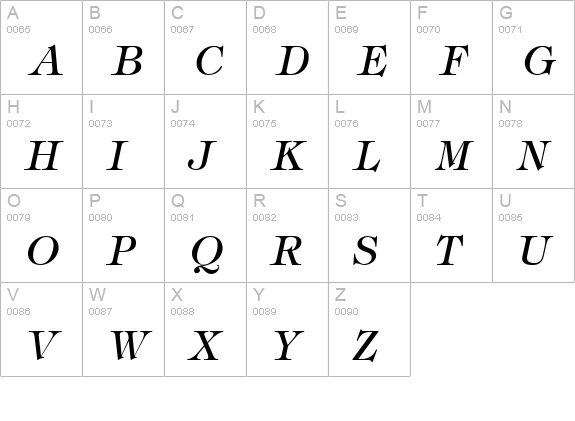
Timpani Italic is a distinctive, italic variant in the Timpani typeface family \xE2\x80\x94 well suited to design and typography projects.
Timpani Italic font is a stunning and versatile typeface that effortlessly combines elegance with a contemporary edge. With its graceful curves and slanted design, this font adds a touch of sophistication to any project, making it perfect for logos, titles, headings, and more. What sets Timpani Italic font apart is that it is not only visually appealing but also freely available to download. You can easily access this font at FontsMarket.com, where it can be effortlessly incorporated into your design projects without any cost. This makes Timpani Italic font a fantastic choice for designers, students, and anyone else looking to add a touch of professional flair to their work without breaking the bank. Every letter in Timpani Italic font is meticulously crafted, ensuring legibility and readability even at smaller sizes. The smooth and flowing strokes of this font create a harmonious balance between elegance and readability, making it a versatile choice for a wide range of design applications. Whether you are working on a branding project, a magazine layout, or a website design, Timpani Italic font is sure to make a lasting impression. Its distinct italic style adds a sense of dynamism and movement to your text, while still maintaining a sense of refined sophistication. Take advantage of the freedom and convenience of downloading Timpani Italic font from FontsMarket.com today. Elevate your designs with this freely available font and experience the beauty and versatility it brings to your creative endeavors.